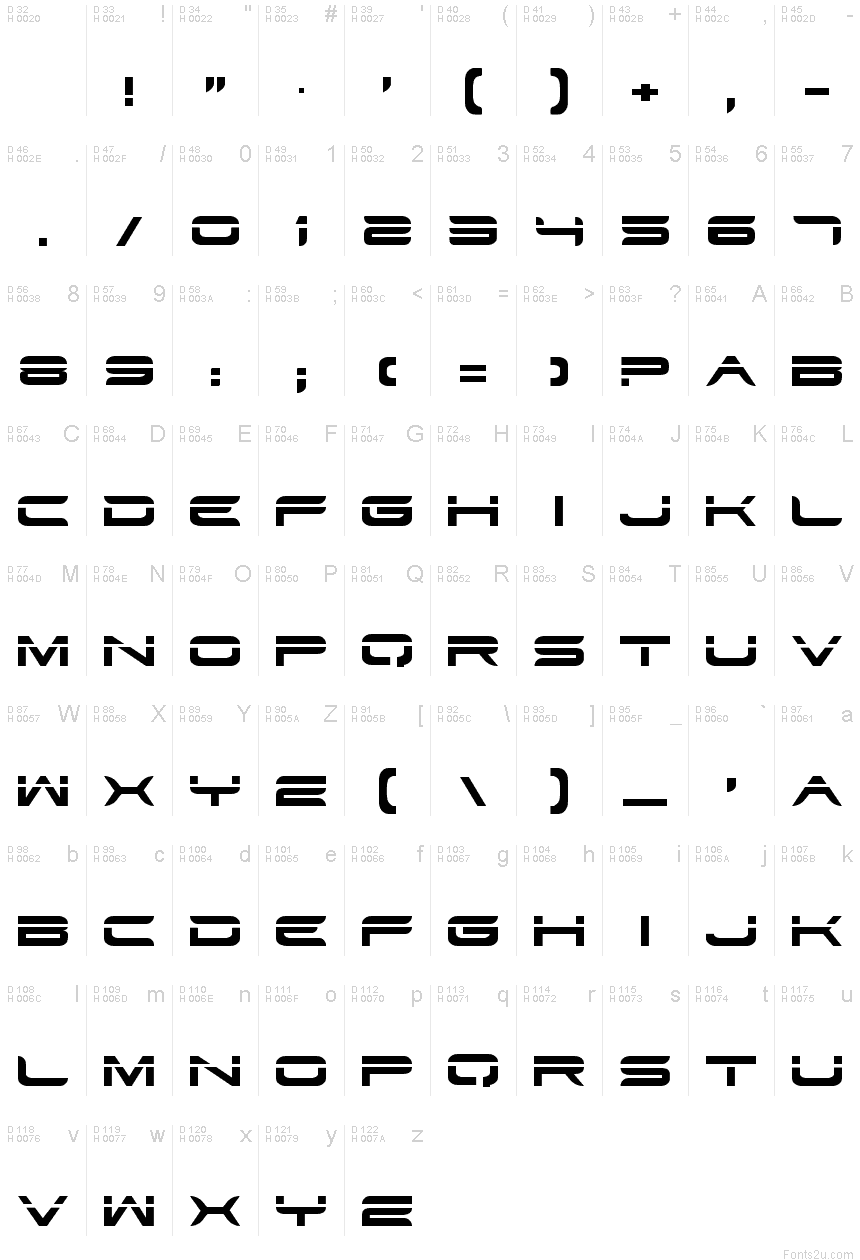
STR is a free futuristic display font by STR, drawn with wide proportions and a machine-tooled profile. Broad horizontal strokes set the pace. Deep cuts, open joins, and sharply tapered sections give the letters a fast, engineered appearance, with some forms reduced to long bands interrupted by gaps.
Its science-fiction styling suits game title cards and electronic music branding, with lettering that suggests machinery and advanced interfaces. The extended silhouette also makes a convincing basis for automotive merchandise and event posters, where the letters can echo racing stripes and streamlined bodywork. In publishing, it could shape cover lines for technology magazines or speculative-fiction features into part of the subject matter itself.